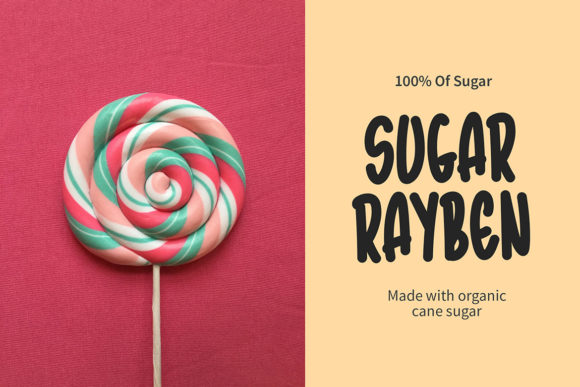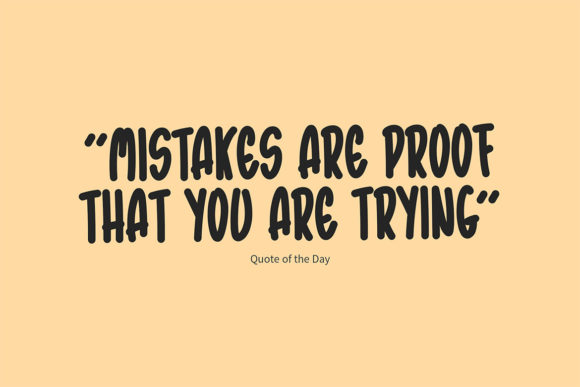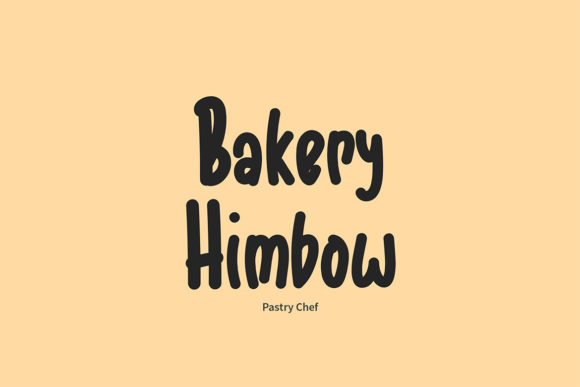
Introduction to Ratatoileys Font
As you sit in front of your computer, staring at a blank canvas, the excitement builds. You have a creative project on the horizon, and you’re searching for the perfect font to bring it to life. Your eyes scan through the endless options, but none seem to capture the essence of your vision. That’s where Ratatoileys Font comes in – a bold and fun handwritten font that’s about to revolutionize your design process.
Imagine having a font that’s not only visually stunning but also incredibly versatile. Ratatoileys Font is the perfect design resource for any creative project, from fashion and apparel to magazine layouts and social media graphics. With its high-quality aesthetic and transparent background, this font is sure to make a statement. And the best part? It’s available for free download, making it an invaluable asset for designers of all levels.
Whether you’re a seasoned pro or just starting out, Ratatoileys Font is an essential addition to your design toolkit. Its unique charm and character will elevate your work to new heights, making it a valuable asset for any creative project.
Key Features of Ratatoileys Font
- Unique and Creative Typography: Ratatoileys Font is a high-quality design resource ideal for creative projects that require a distinctive and eye-catching font.
- Transparent Background: This font features a transparent background, making it perfect for use on various backgrounds and designs.
- High-Quality Design: The font is designed with high-quality standards in mind, ensuring that it looks great on a range of devices and resolutions.
- Perfect for Creative Projects: Ratatoileys Font is an excellent choice for designers and artists working on creative projects, such as graphic design, digital art, and more.
Honest Review: Ratatoileys Font
I recently had the opportunity to experiment with Ratatoileys Font, a free download that I found online. As a designer, I’m always on the lookout for high-quality design resources to elevate my creative projects.
Here’s what I liked about Ratatoileys Font: ✨ It has a unique, quirky aesthetic that adds a touch of personality to any design. ✨ The font is highly customizable, making it easy to adjust the transparency of the background to suit my needs. ✨ The free download aspect was a major plus, as it saved me money and allowed me to explore different design options without breaking the bank.
- Unique and quirky aesthetic
- Highly customizable
However, I did encounter some limitations: ⚠️ The font can be a bit too bold for some designs, making it difficult to read. ⚠️ The free version has some limitations compared to the paid version, which may be a drawback for some designers.
Overall, I was impressed with Ratatoileys Font, and I would recommend it to designers looking for a creative solution for their projects. With its unique aesthetic and high level of customizability, it’s definitely a design resource worth exploring.
Ratatoileys Font is commonly used in creative projects such as logos, branding, and graphic design. It’s also a great choice for presentations, documents, and social media graphics. With its high-quality design and versatility, Ratatoileys Font is a valuable addition to any design resource library.